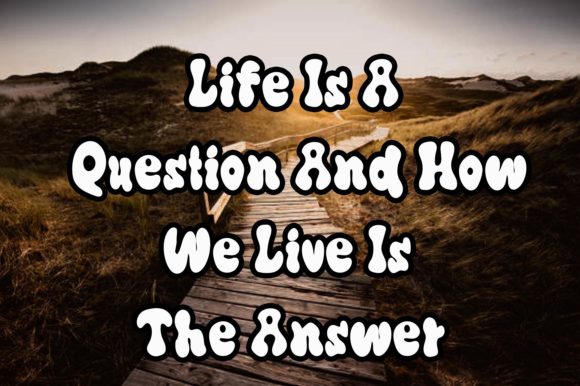
Wave Road Font
db-ku.com - Script & Handwritten -- Wave Road is a cute and casual serif font that will look outstanding in any context. Whether you’re looking for fonts for Instagram or calligraphy scripts for DIY projects, this font will turn any creative idea into a true piece of art!